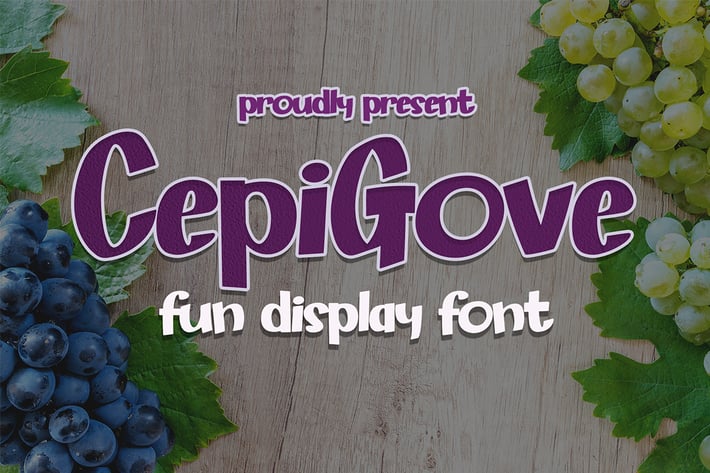
Cepigove - Display Font
Introducing Cepigove, a simple and fun handwritten font. Its unique and sweety feel.
So perfect for you who needs a typeface for logo designs, magazine, social media, brochure, and many more.